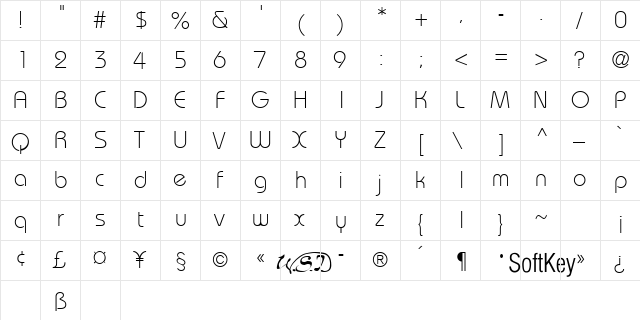
Brie Light Regular Font Preview
Brie Light Regular
Design Context for Brie Light Typeface
Brie Light takes a measured approach to typography — its balanced proportions and neutral character make it a reliable workhorse for both digital and print work. The delicate stroke weight brings airiness and refinement to layouts.